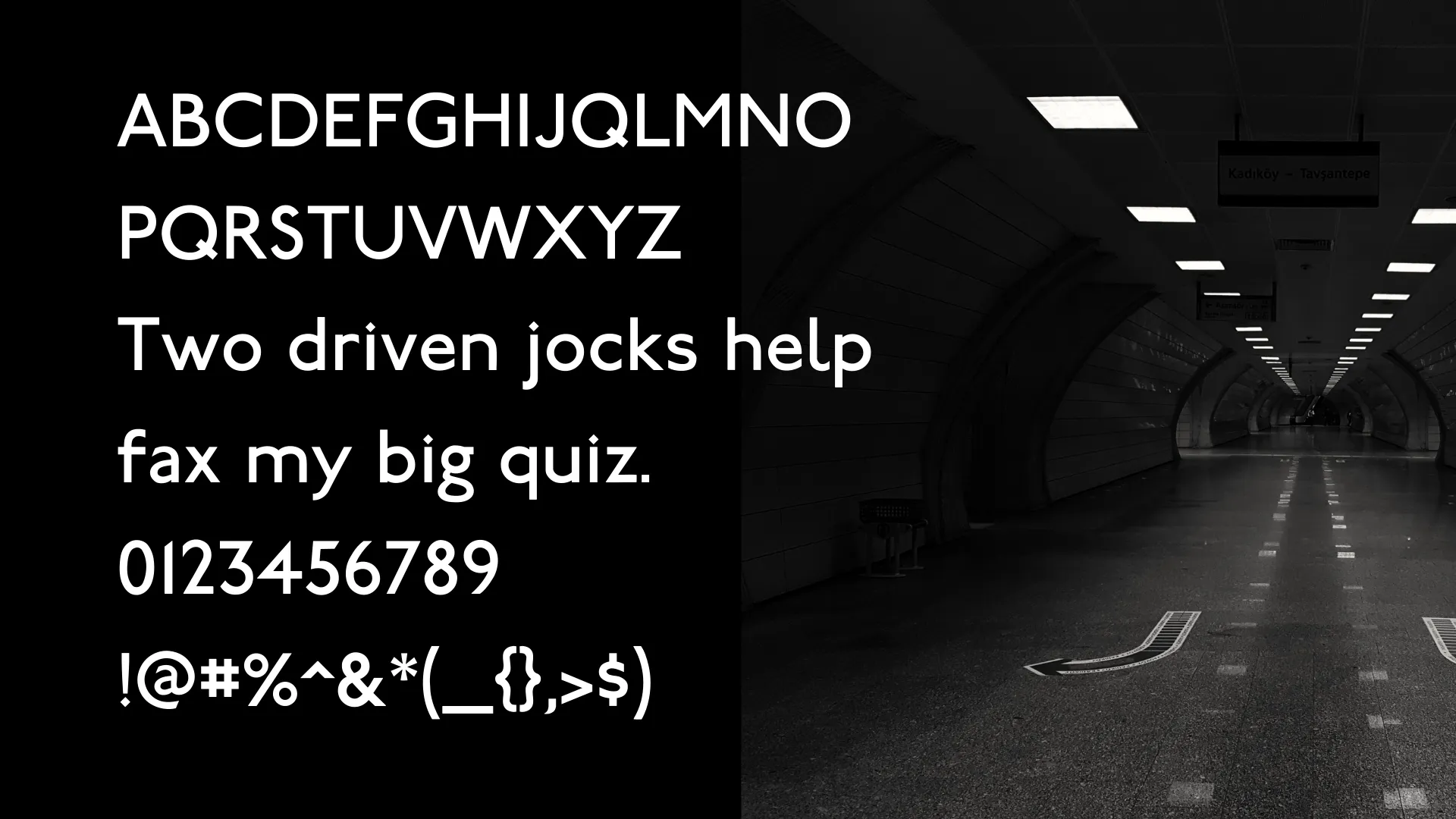
P22 Underground Font is a member of the Sans-Serif font family. This font style has a readable and clean texture appearance that can be utilized in almost any design. This font style has been designed in 1997 as P22 Johnston Underground for the London Underground system. This font style has been designed with a readable texture appearance that is quite the best for printing purposes. Because this font style produces an amazing prominent texture appearance on the prints.
This text style is used by the majority of designers in their designs and projects. For banners and advertising, many businesses use this elegant and tidy writing design. The appearance of this texturing style is bold and readable. This typeface is also used in articles, presentations, and designs, among other things.
This font is also appropriate and it is also used to create official documents. This beautiful texture design is frequently used to create business cards, invitation cards, and other printed materials. This lovely texture font is also used to create logos that are both beautiful and powerful. This font style is also utilized for creating amazing designs in Canva, a graphic designing software.
Creator of P22 Underground Font
This amazing and outstanding font style has been designed by three famous font designers named Edward Johnston, Paul D. Hunt, and Richard Kegler. They have also designed many of the famous fonts that are utilized in a number of designs.
This font texture is constructed with a family of its own. Each style of this family is comprised of capital letters, small letters, glyphs, punctuations, numbers, symbols, special characters, and many languages support. These styles are mentioned below.
- P22 Underground Thin
- P22 Underground Light
- P22 Underground Book
- P22 Underground Medium
- P22 Underground DemiBold
- P22 Underground Heavy
- P22 Underground Thin Petite Caps
- P22 Underground Light Petite Caps
- P22 Underground Book Petite Caps
- P22 Underground Medium Petite Caps
- P22 Underground Demi Petite Caps
- P22 Underground Heavy Petite Caps
- P22 Underground Thin Small Caps
- P22 Underground Light Small Caps
- P22 Underground Book Small Caps
- P22 Underground Medium Small Caps
- P22 Underground Demi Small Caps
- P22 Underground Heavy Small Caps
View of P22 Underground Font
| Name | P22 Underground Font |
| Designer | Edward Johnston, Paul D. Hunt, and Richard Kegler |
| Foundry | P22 Type Foundry |
It can support up to 74 languages.
What font is P22 Underground Font?
This font is a member of the Sans-Serif font family. This font style has a readable and clean texture appearance that can be utilized in almost any design.
What font is closest to P22 Underground Font?
There are also some fonts that are similar to this font style. But we have searched that GargleRg-Regular font and Alex Brush Font are the most similar to this font style.
Who designed P22 Underground Font?
This amazing and outstanding font style has been designed by three famous font designers named Edward Johnston, Paul D. Hunt, and Richard Kegler.
Is P22 Underground Font Worth Using?
This typeface has been used by many organizations and designers. So, yes this typeface is worth using.